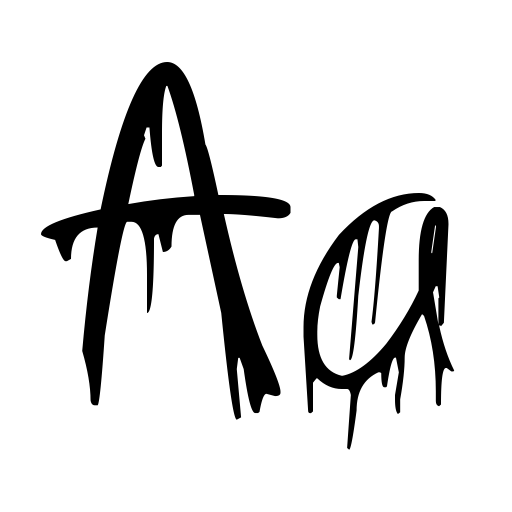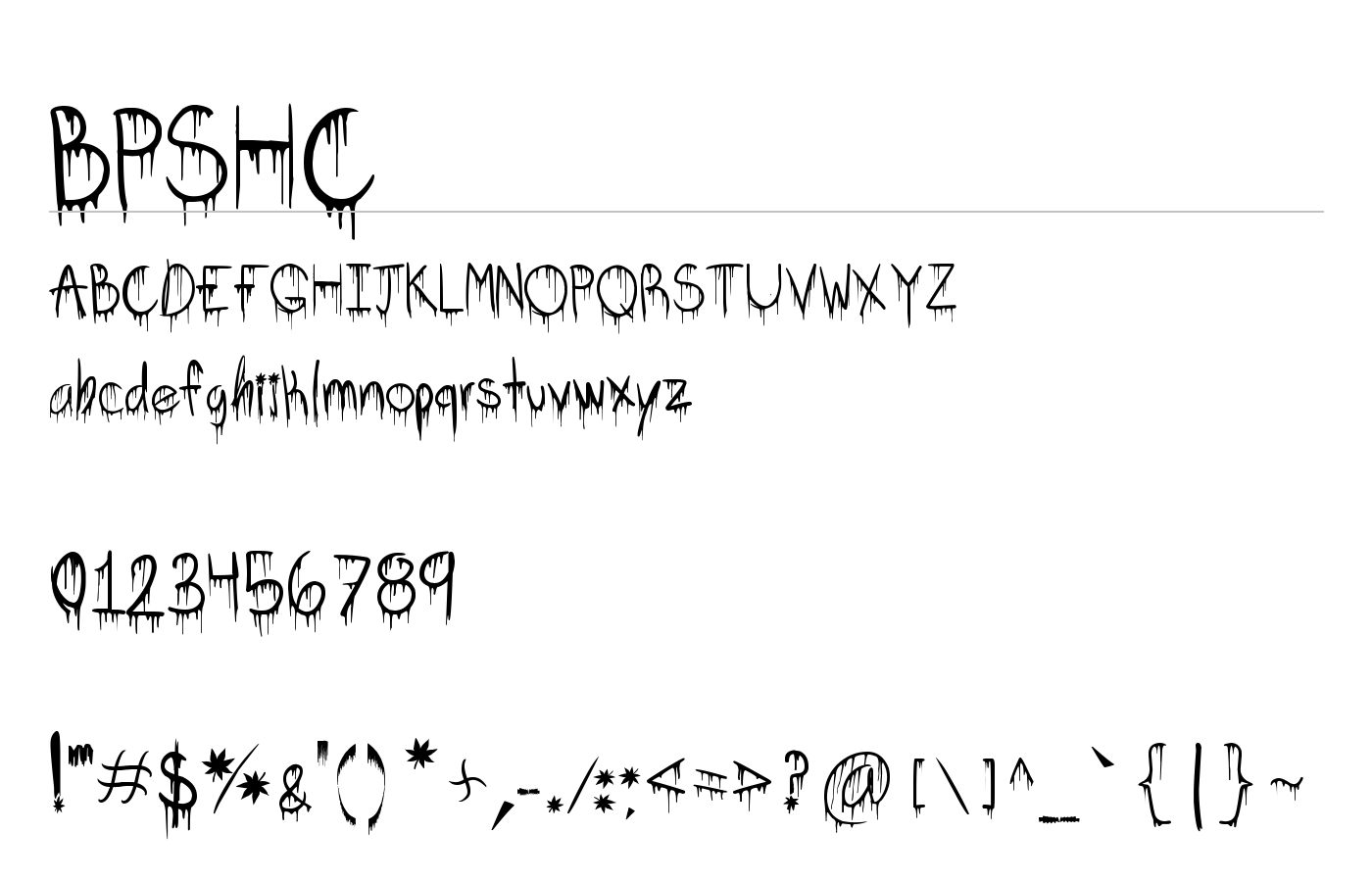
BPSHC is a dripping, horror-inspired display font with a spooky, hand-drawn feel. Its tall, narrow letterforms feature irregular edges and melt-like drips, creating a dramatic and eerie atmosphere perfect for Halloween designs, horror-themed posters, or playful spooky branding. This font works best in headlines or decorative contexts where its unique style can stand out and grab attention.
BPSHC Font
About BPSHC Font